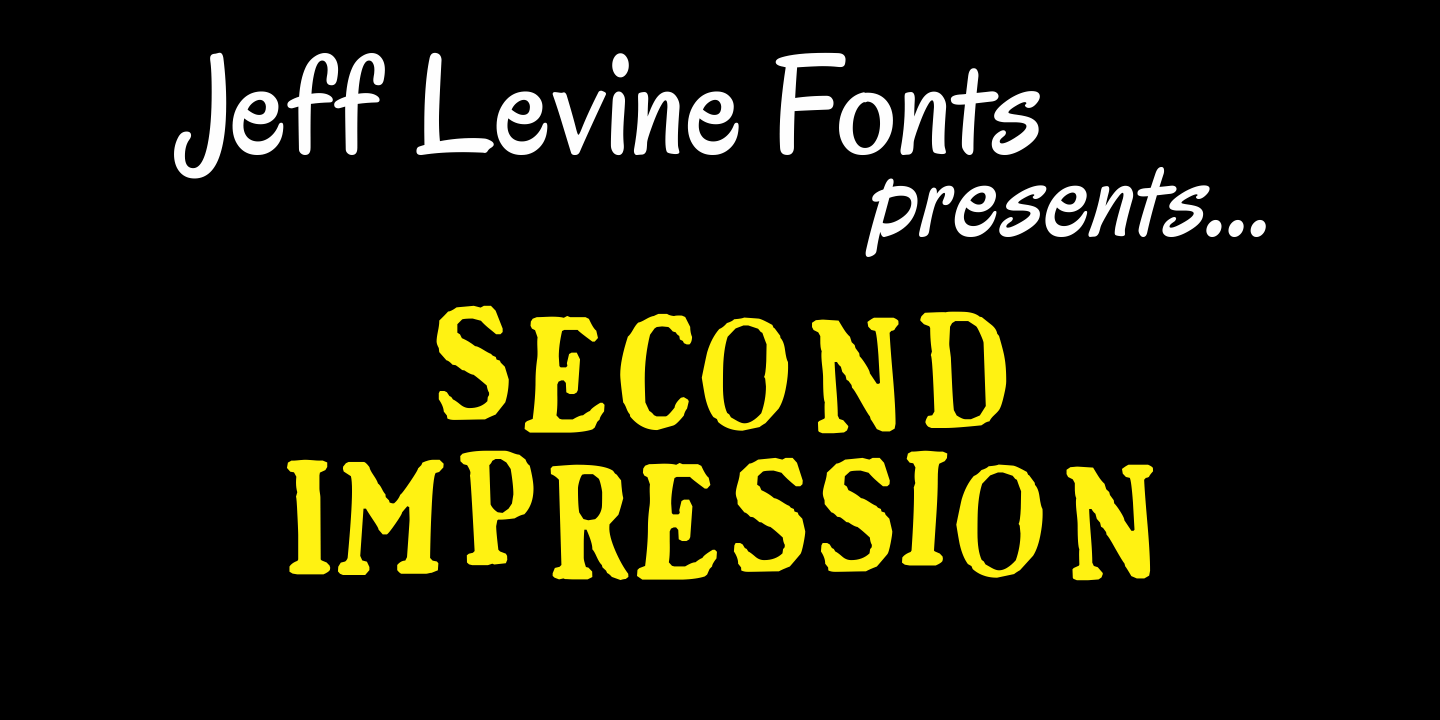
Second Impression
Second Impression JNL is the solid version of Lasting Impression JNL by Jeff Levine. It emulates the look of ink-stamped letters and numerals. Based on a 1930s-era set of rubber stamps, there is a limited character set.